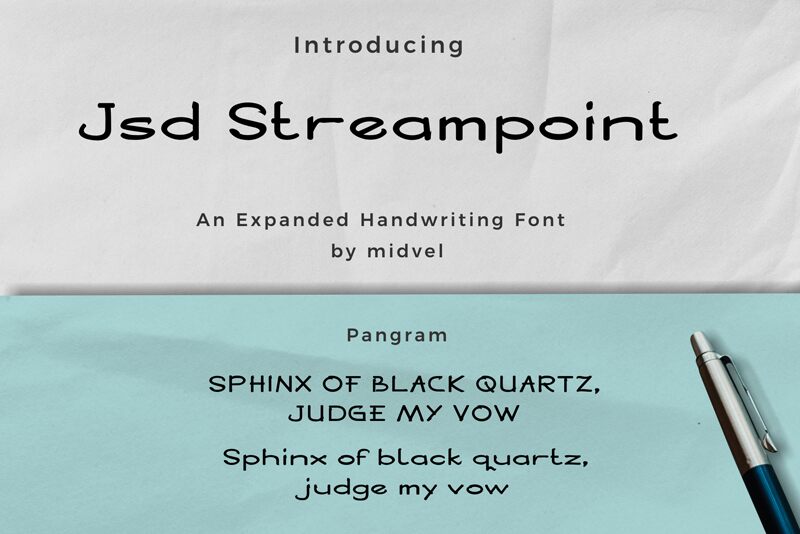
Jsd Streampoint Expanded Regular
Jsd Streampoint is a expanded handwriting font. This font inspired from someone handwriting. The font fit in to create book cover, business card, wedding sign, shop name design, poster, ect.